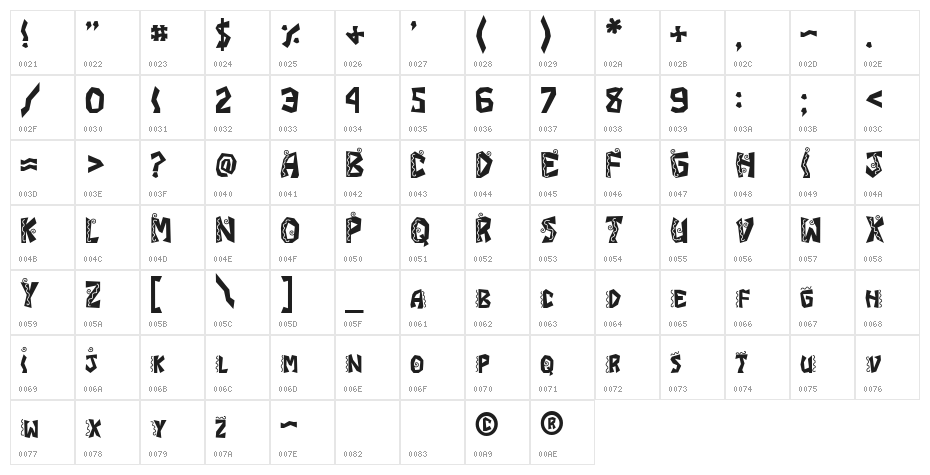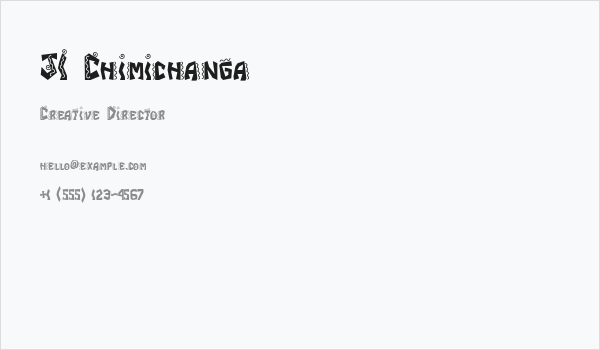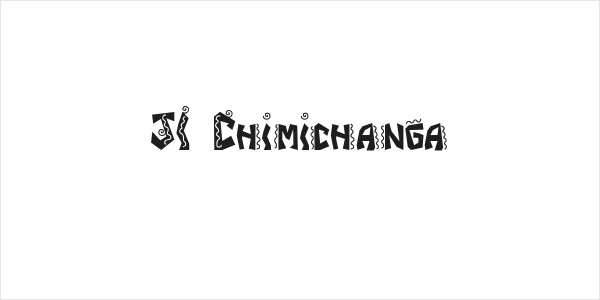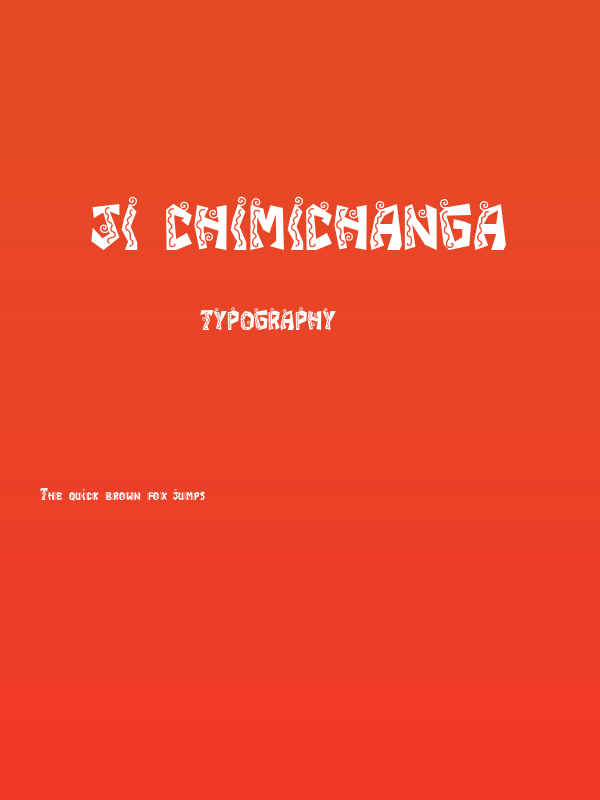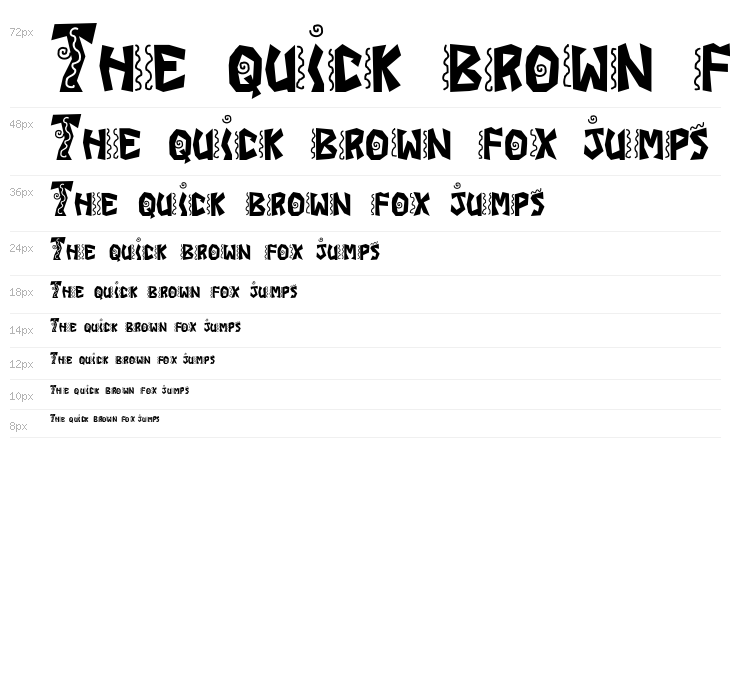
JI Chimichanga Font
JI Chimichanga Description
This font is a bold and playful display typeface with a unique, whimsical style. Each character features exaggerated, angular shapes with decorative elements such as swirls and zigzags, giving it a lively and dynamic appearance. The uppercase and lowercase letters maintain a consistent design theme, with the uppercase being more pronounced. The numbers and special characters follow the same playful aesthetic, making the font suitable for creative and informal contexts. Its distinctive style makes it stand out, perfect for projects that require a fun and eye-catching typeface.
| Proposed Projects | Ideal for children's books, party invitations, posters, and playful branding. |